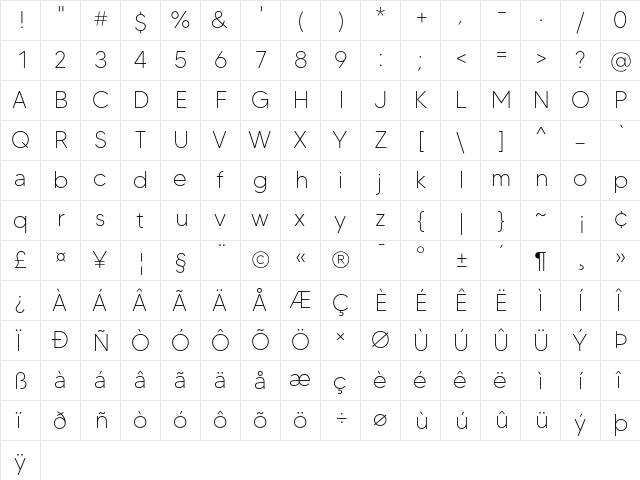
MADE TOMMY Thin
Design Context for MADE TOMMY Typeface
MADE TOMMY takes a measured approach to typography — its balanced proportions and neutral character make it a reliable workhorse for both digital and print work. Its slender proportions lend an understated elegance to any composition.
Pro Tip: Pair MADE TOMMY with a font of contrasting weight or personality to build a more expressive typographic hierarchy.